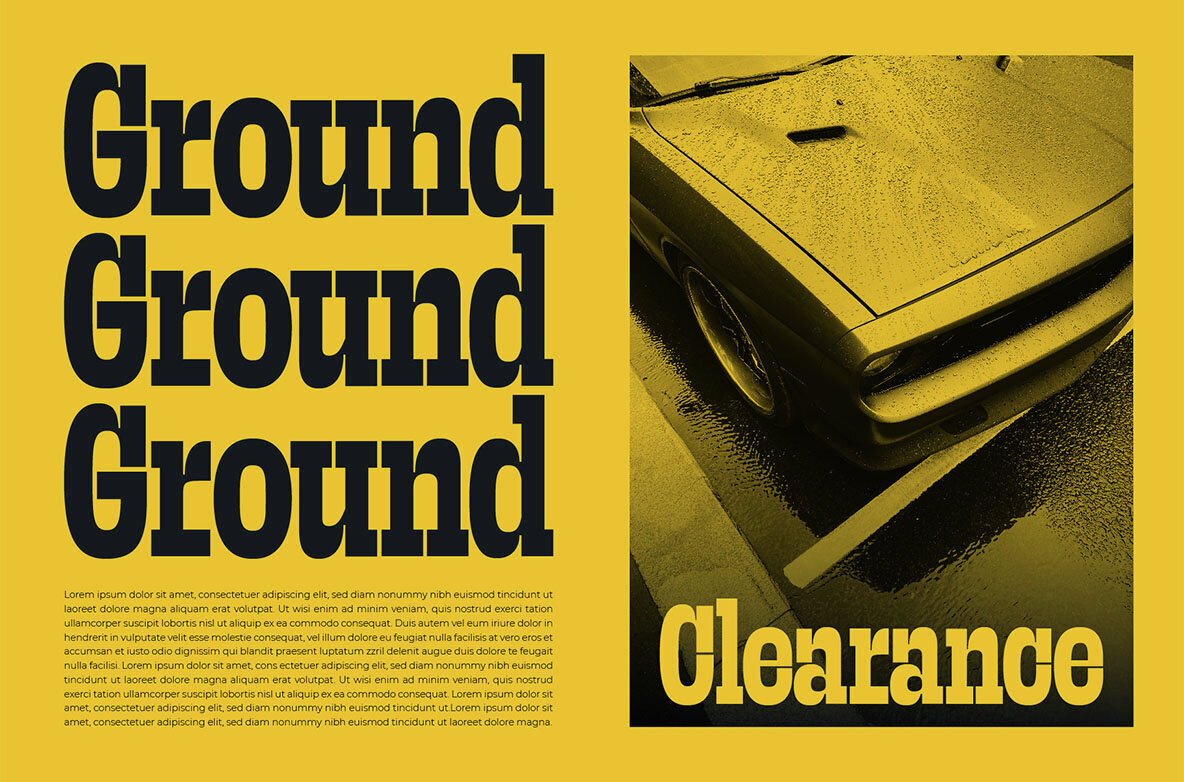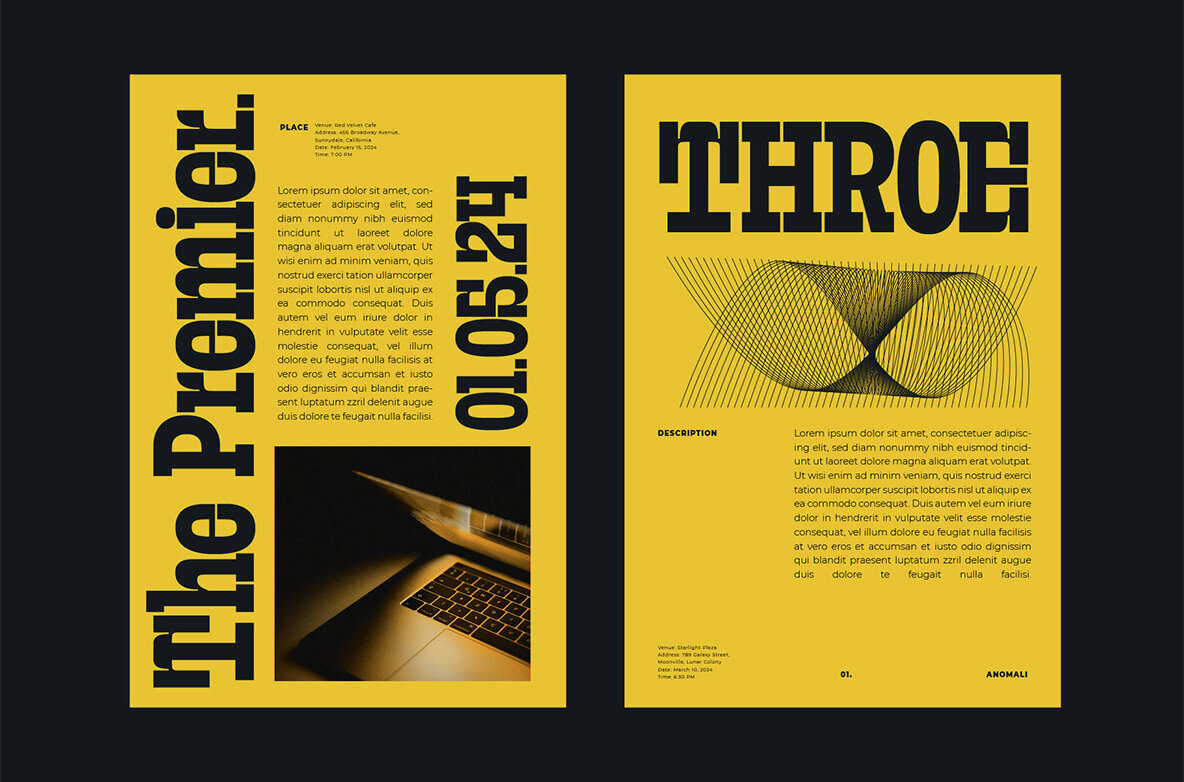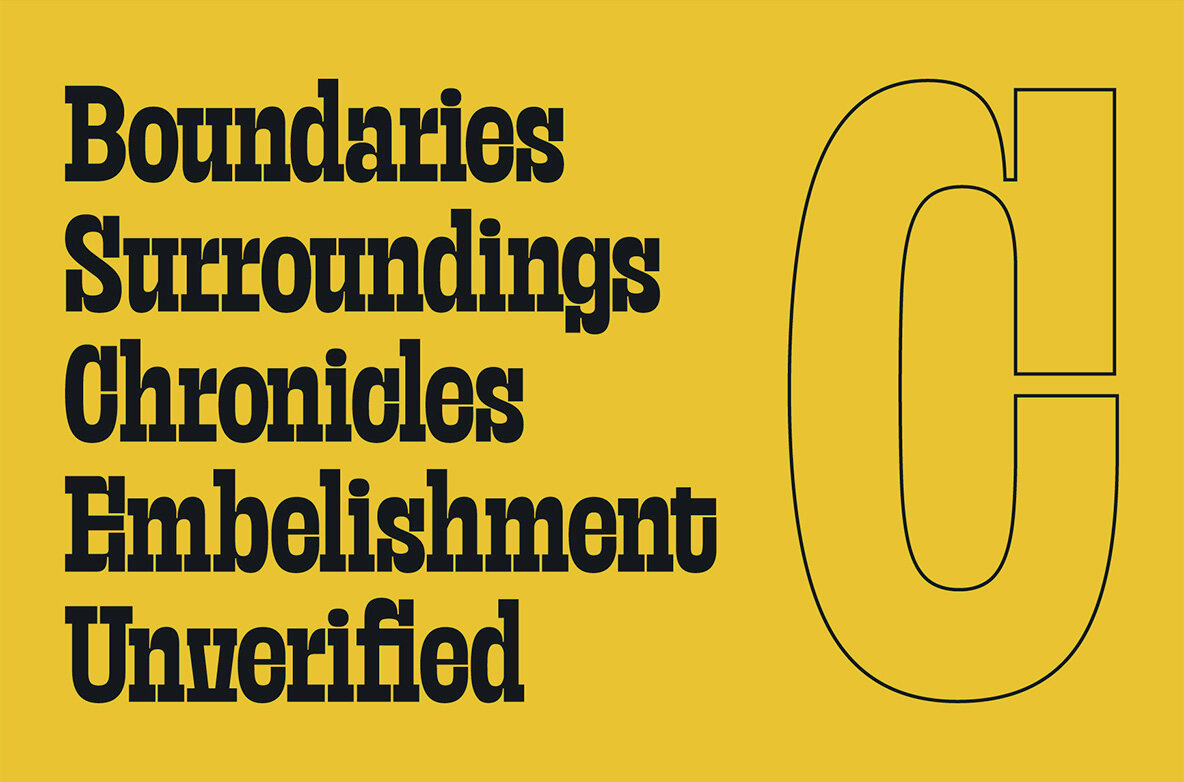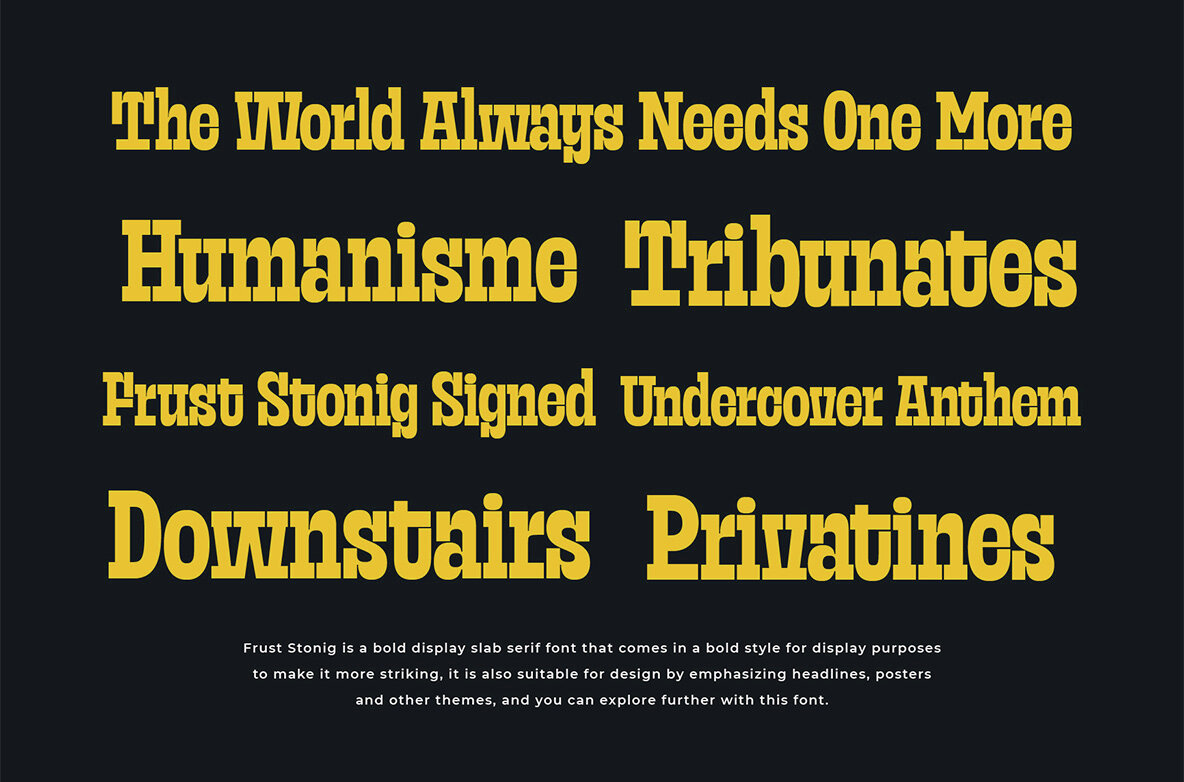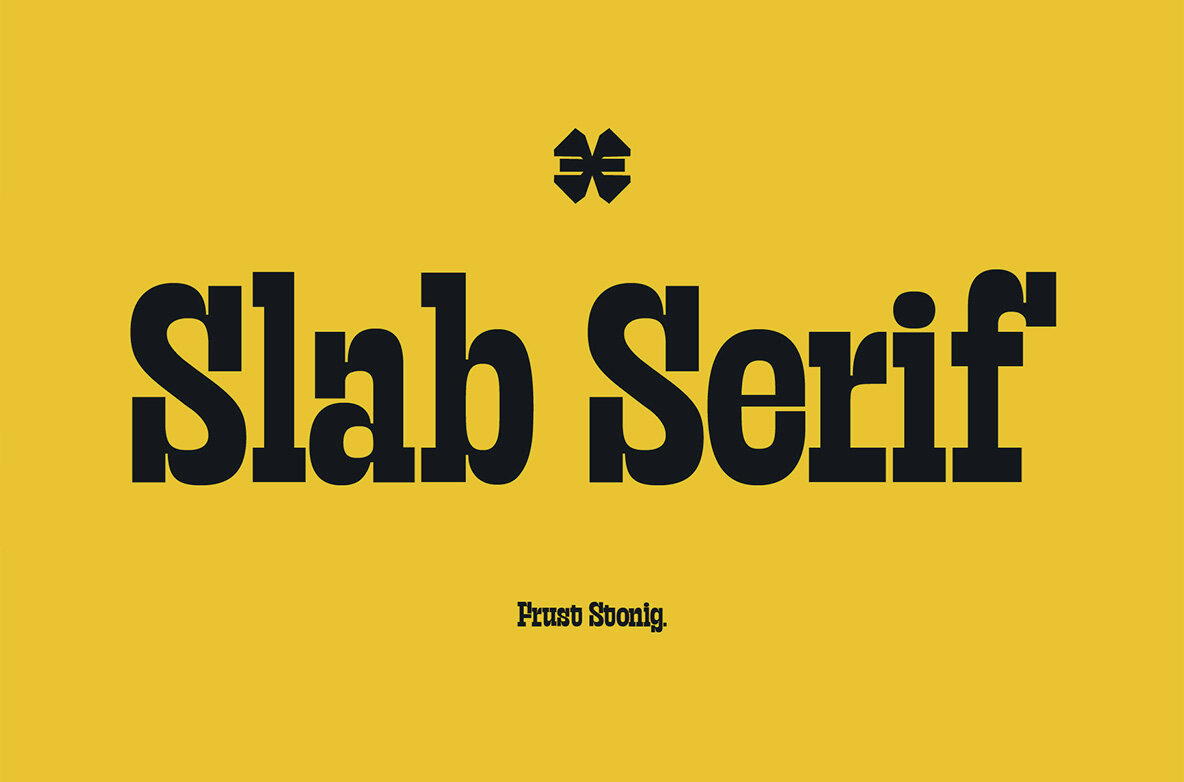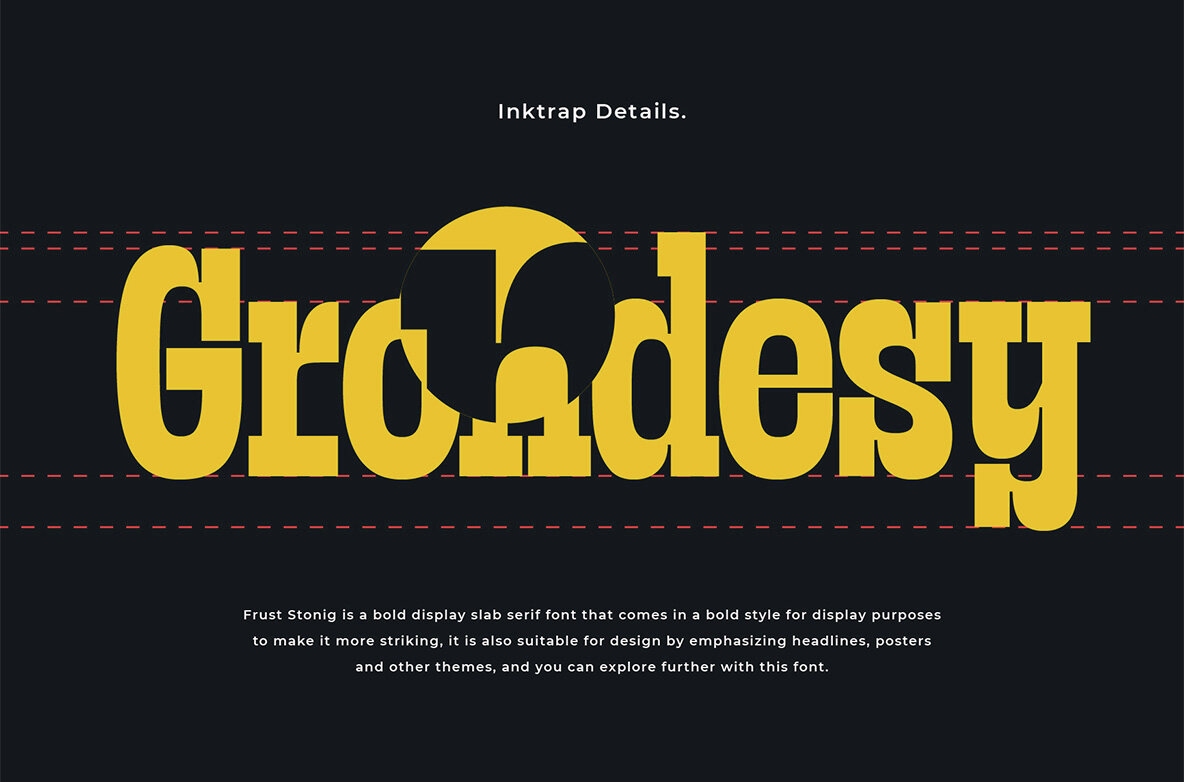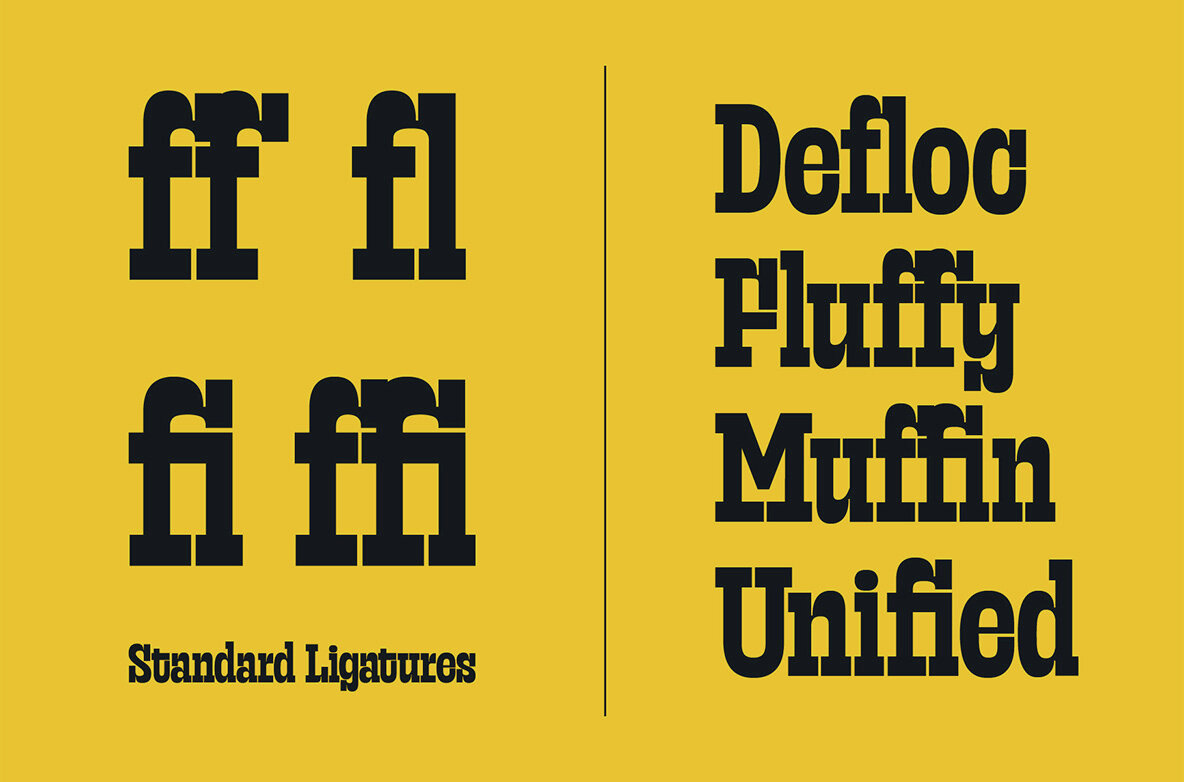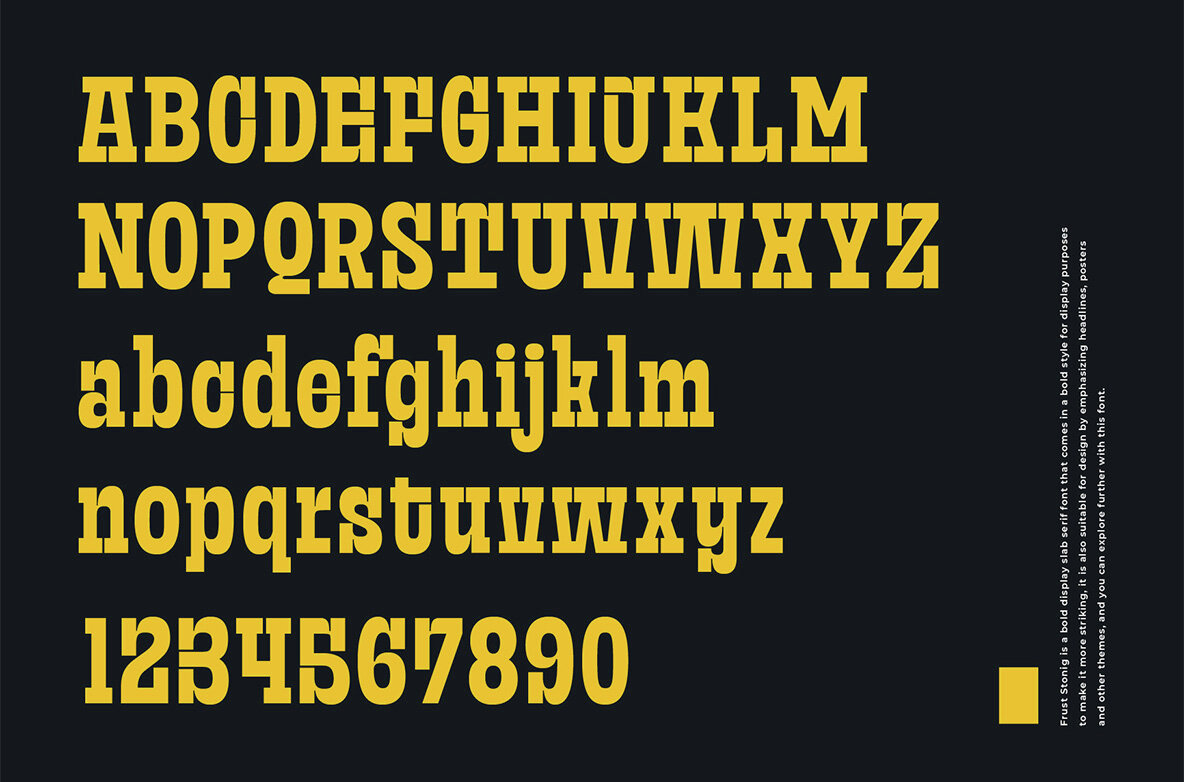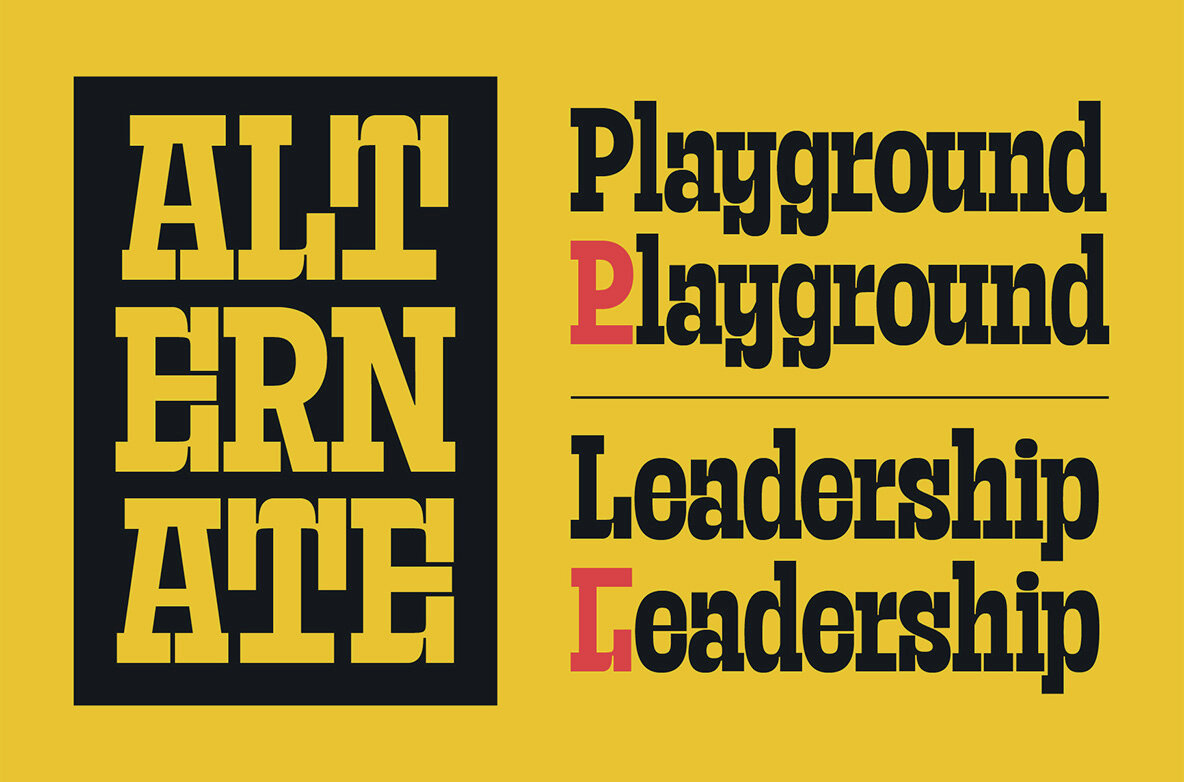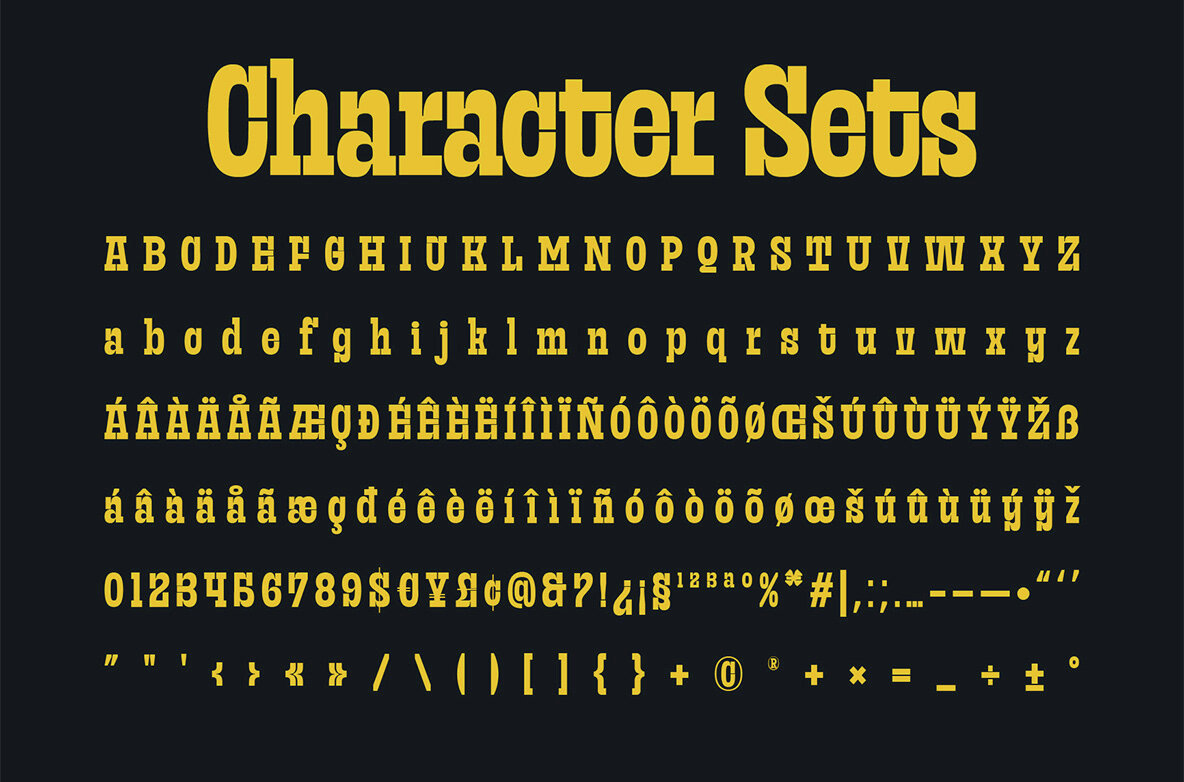
Frust Stonig Font
Frust Stonig Regular
Frust Stonig is a contemporary slab serif font that merges modern design elements with the traditional characteristics of slab serif typefaces. What sets Frust Stonig apart is its incorporation of ink traps, which are small indentations or corners strategically placed within the letterforms. These ink traps serve to enhance legibility, particularly at smaller sizes or in challenging printing conditions, by preventing ink from filling in and obscuring the details of the characters. The font’s overall aesthetic is clean, geometric, and sturdy, typical of slab serif typefaces, but with a touch of modern sophistication. Its sharp edges and defined lines exude a sense of strength and confidence, making it well-suited for a variety of applications, from editorial design to branding and advertising. Frust Stonig strikes a balance between professionalism and personality, making it versatile enough to convey both seriousness and approachability depending on the context. Whether used for headlines, body text, or display purposes, this font is sure to make a bold statement while maintaining readability and visual impact.